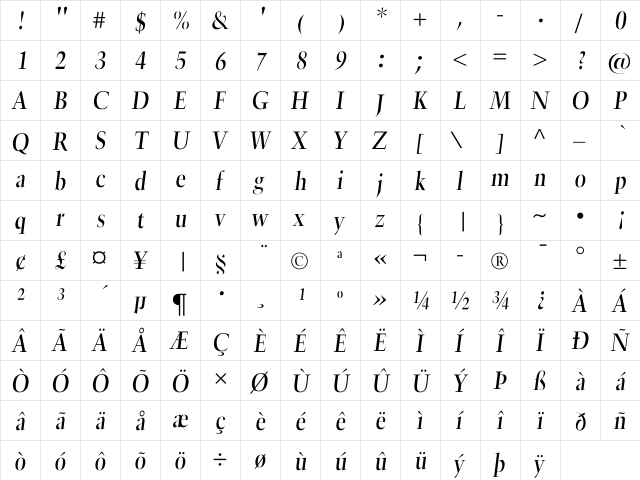
LHF Classic Roman Italic
| Foundry | John Studden for Letterhead Fonts |
Design Context for LHF Classic Roman Typeface
LHF Classic Roman wears its vintage influences proudly, with letterforms that recall mid-century signage, classic packaging, and nostalgia-driven design. Its italic angle brings a sense of urgency and motion to the letterforms.
Ideal for diner signage, record shop branding, 70s/80s-themed projects, and heritage product labels.
Font Pairing: Combine LHF Classic Roman with a simple slab or neutral sans — period-accurate companions reinforce the vintage feel without competing for attention.
Pro Tip: Lean into LHF Classic Roman's period character by pairing it with aged paper textures, muted colour palettes, and vintage illustration styles.